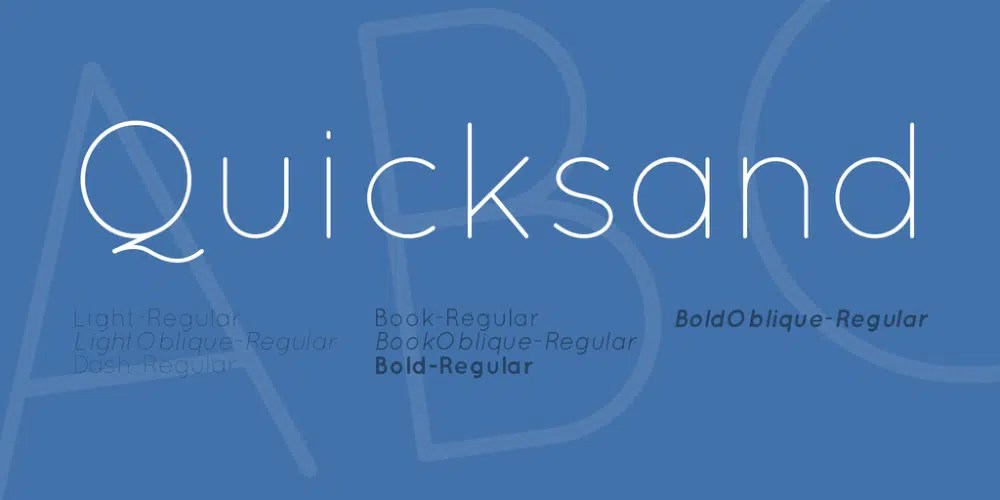
Best Font For Professional Brochure . The best fonts for brochures are those that whisper (or shout, if that’s your style) your brand’s personality. The best fonts for business brochures and flyers combine classic styling with modern features. Today, we'll give you some tips on how to choose a font for your brochure, show you some examples of fonts used in brochures, and then share the best fonts for brochures of all types available at envato elements. Whether you're creating a corporate pamphlet, an event flyer, or a creative showcase, these fonts provide the essential ingredients for a visually appealing and effective brochure design. From assessing the readability and accessibility of a font to considering the tone and style of a sans serif font versus a serif one, your chosen font has the ability to captivate, inform, and. In this article, we look look at over 60 fonts that you can use in your brochure and flyer. Elegant script fonts for a high. An effective flyer or brochure font will draw the eye, inspire an emotional response and convey your message. Distinctive and versatile, these font sets from designers around the globe add a sophisticated, professional look to promotional materials of all kinds.
From assessing the readability and accessibility of a font to considering the tone and style of a sans serif font versus a serif one, your chosen font has the ability to captivate, inform, and. Elegant script fonts for a high. An effective flyer or brochure font will draw the eye, inspire an emotional response and convey your message. The best fonts for business brochures and flyers combine classic styling with modern features. Distinctive and versatile, these font sets from designers around the globe add a sophisticated, professional look to promotional materials of all kinds. The best fonts for brochures are those that whisper (or shout, if that’s your style) your brand’s personality. In this article, we look look at over 60 fonts that you can use in your brochure and flyer. Today, we'll give you some tips on how to choose a font for your brochure, show you some examples of fonts used in brochures, and then share the best fonts for brochures of all types available at envato elements. Whether you're creating a corporate pamphlet, an event flyer, or a creative showcase, these fonts provide the essential ingredients for a visually appealing and effective brochure design.
Best Font For Professional Brochure The best fonts for brochures are those that whisper (or shout, if that’s your style) your brand’s personality. Whether you're creating a corporate pamphlet, an event flyer, or a creative showcase, these fonts provide the essential ingredients for a visually appealing and effective brochure design. The best fonts for business brochures and flyers combine classic styling with modern features. Elegant script fonts for a high. In this article, we look look at over 60 fonts that you can use in your brochure and flyer. The best fonts for brochures are those that whisper (or shout, if that’s your style) your brand’s personality. From assessing the readability and accessibility of a font to considering the tone and style of a sans serif font versus a serif one, your chosen font has the ability to captivate, inform, and. An effective flyer or brochure font will draw the eye, inspire an emotional response and convey your message. Today, we'll give you some tips on how to choose a font for your brochure, show you some examples of fonts used in brochures, and then share the best fonts for brochures of all types available at envato elements. Distinctive and versatile, these font sets from designers around the globe add a sophisticated, professional look to promotional materials of all kinds.
Best Font For Brochure A Comprehensive Guide Best Font For Professional Brochure Whether you're creating a corporate pamphlet, an event flyer, or a creative showcase, these fonts provide the essential ingredients for a visually appealing and effective brochure design. Today, we'll give you some tips on how to choose a font for your brochure, show you some examples of fonts used in brochures, and then share the best fonts for brochures of. Best Font For Professional Brochure.
6 Great Fonts for Your Brochures Image Cube Best Font For Professional Brochure Elegant script fonts for a high. Distinctive and versatile, these font sets from designers around the globe add a sophisticated, professional look to promotional materials of all kinds. An effective flyer or brochure font will draw the eye, inspire an emotional response and convey your message. Whether you're creating a corporate pamphlet, an event flyer, or a creative showcase, these. Best Font For Professional Brochure.
80+ Best Canva Fonts Ultimate Canva Font Guide for Choosing Fonts Best Font For Professional Brochure In this article, we look look at over 60 fonts that you can use in your brochure and flyer. Today, we'll give you some tips on how to choose a font for your brochure, show you some examples of fonts used in brochures, and then share the best fonts for brochures of all types available at envato elements. An effective. Best Font For Professional Brochure.
10+ Best Fonts for Brochures in 2021 Free and Premium Fonts Best Font For Professional Brochure Distinctive and versatile, these font sets from designers around the globe add a sophisticated, professional look to promotional materials of all kinds. From assessing the readability and accessibility of a font to considering the tone and style of a sans serif font versus a serif one, your chosen font has the ability to captivate, inform, and. The best fonts for. Best Font For Professional Brochure.
20+ Best Fonts for Advertising (+ Tips for Conveying Your Message Best Font For Professional Brochure Whether you're creating a corporate pamphlet, an event flyer, or a creative showcase, these fonts provide the essential ingredients for a visually appealing and effective brochure design. Elegant script fonts for a high. The best fonts for brochures are those that whisper (or shout, if that’s your style) your brand’s personality. In this article, we look look at over 60. Best Font For Professional Brochure.
10+ Best Fonts for Brochures in 2021 Free and Premium Fonts Best Font For Professional Brochure From assessing the readability and accessibility of a font to considering the tone and style of a sans serif font versus a serif one, your chosen font has the ability to captivate, inform, and. Elegant script fonts for a high. An effective flyer or brochure font will draw the eye, inspire an emotional response and convey your message. Distinctive and. Best Font For Professional Brochure.
10+ Best Fonts for Brochures in 2021 Free and Premium Fonts Best Font For Professional Brochure Whether you're creating a corporate pamphlet, an event flyer, or a creative showcase, these fonts provide the essential ingredients for a visually appealing and effective brochure design. Today, we'll give you some tips on how to choose a font for your brochure, show you some examples of fonts used in brochures, and then share the best fonts for brochures of. Best Font For Professional Brochure.
Font Brochure for Interstate Typeface Behance Best Font For Professional Brochure The best fonts for business brochures and flyers combine classic styling with modern features. Elegant script fonts for a high. Today, we'll give you some tips on how to choose a font for your brochure, show you some examples of fonts used in brochures, and then share the best fonts for brochures of all types available at envato elements. In. Best Font For Professional Brochure.